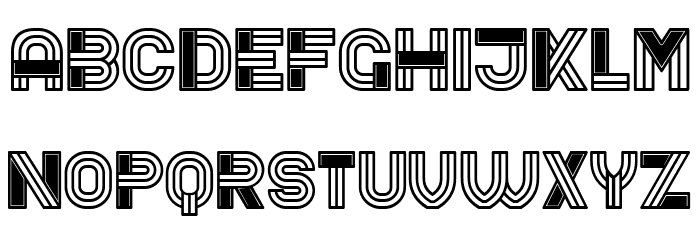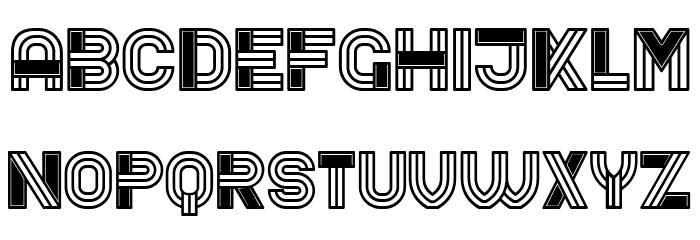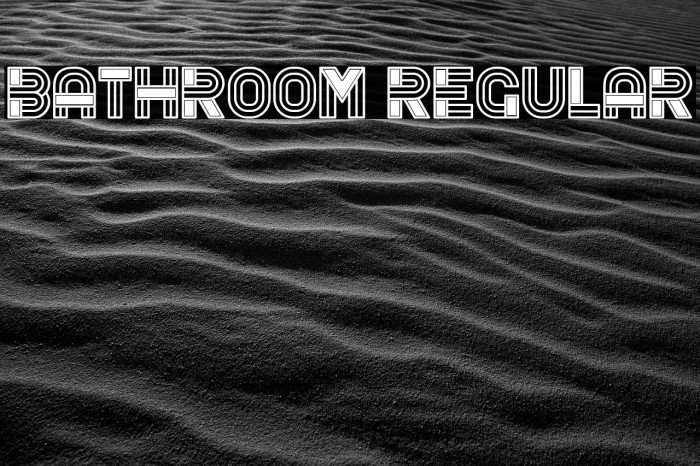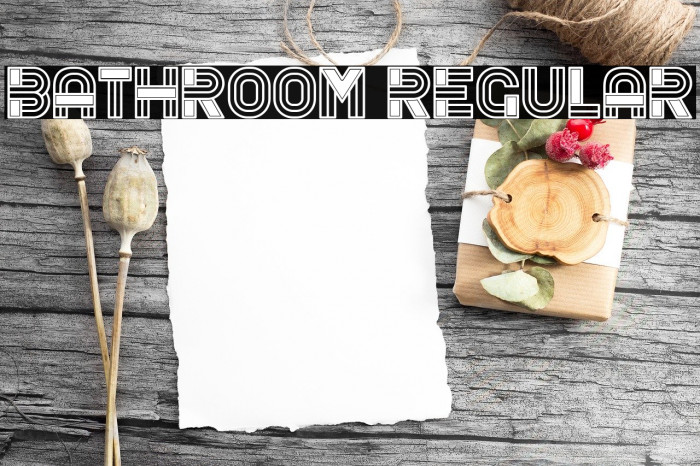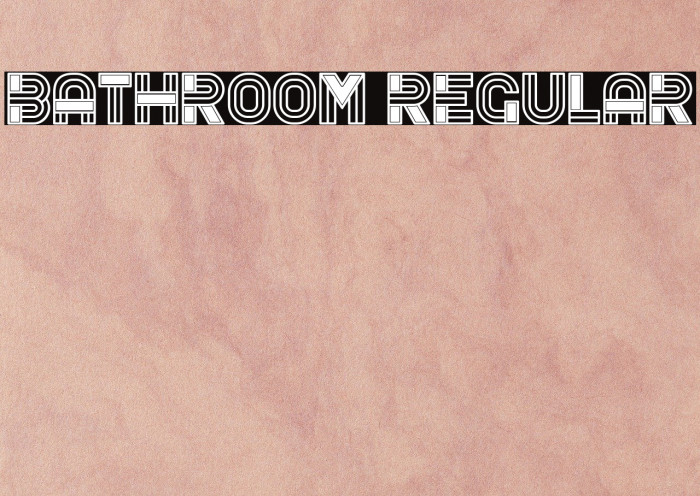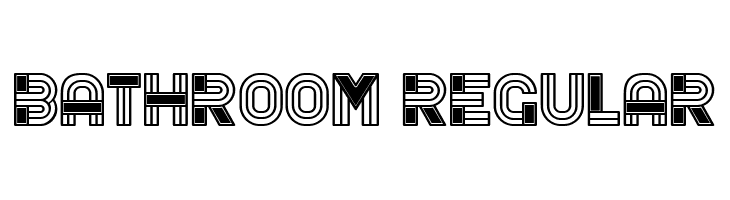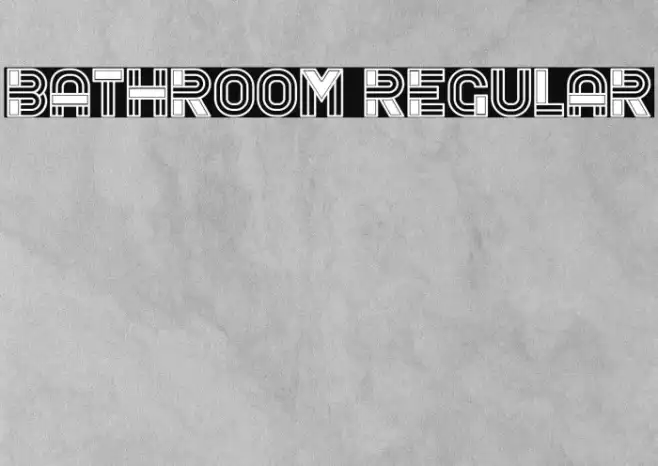
Bathroom Regular Font
This font features a bold and geometric design with a distinctively modern and decorative style. Each character is constructed with multiple parallel lines, creating a layered and dimensional effect. The uppercase letters are uniform in height, with a consistent width that gives the font a structured and cohesive appearance. The design incorporates a mix of solid and outlined elements, adding visual interest and complexity. This font is highly stylized, making it ideal for projects that require a strong visual impact. Its unique aesthetic is suitable for creative and artistic applications, where the font itself becomes a focal point.
A bold, geometric font with layered lines and a modern, decorative style.
- Font: Bathroom Regular
- Proposed Projects: Ideal for posters, branding, album covers, and any project requiring a striking visual element.
- Overall Style: Modern, Decorative